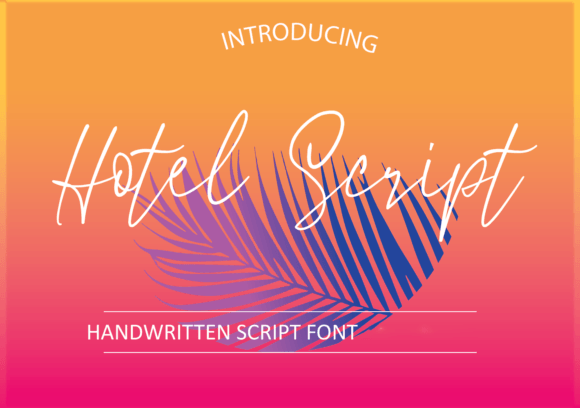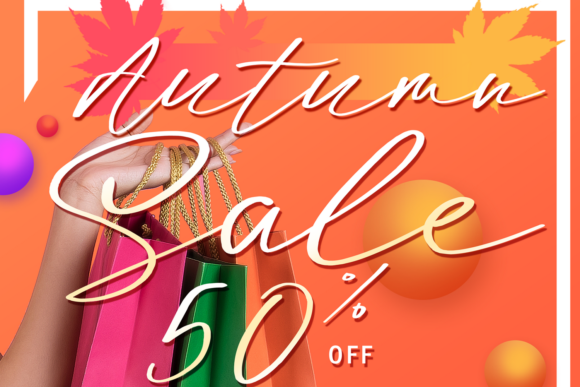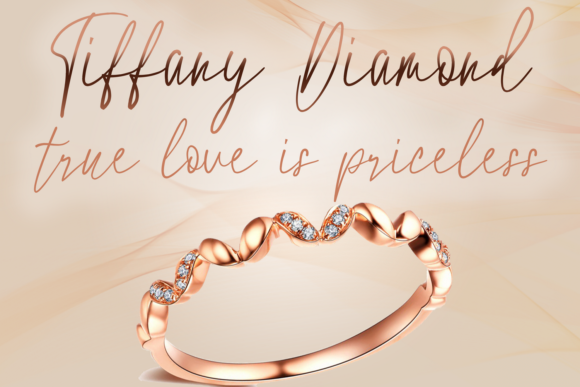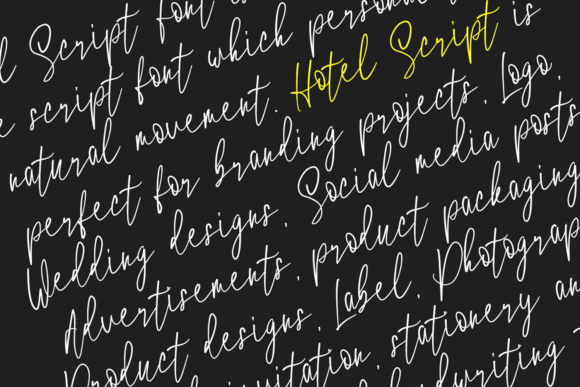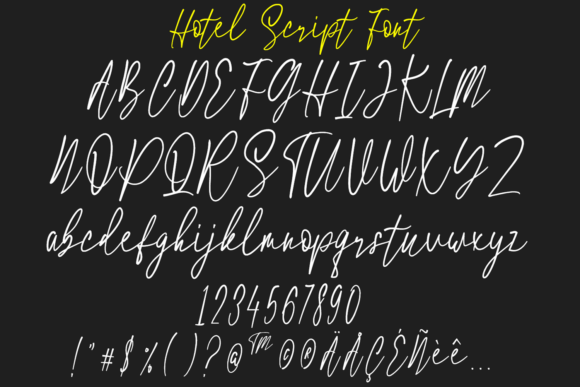
Hotel Script Font
About Hotel Script Font
Hotel Script Font is a beautiful signature script font. It features a natural movement. It will elevate a wide range of design projects to the highest level, be it branding, headings, wedding designs, invitations, signatures, logos, labels, and much more!